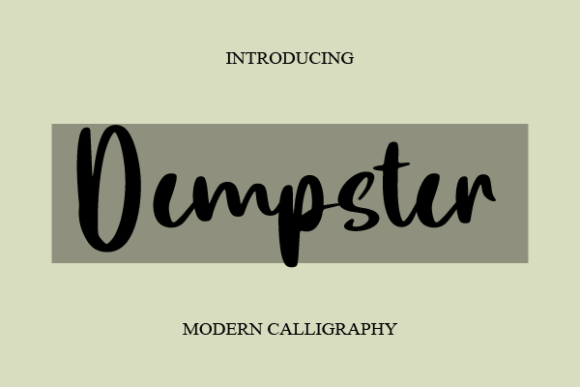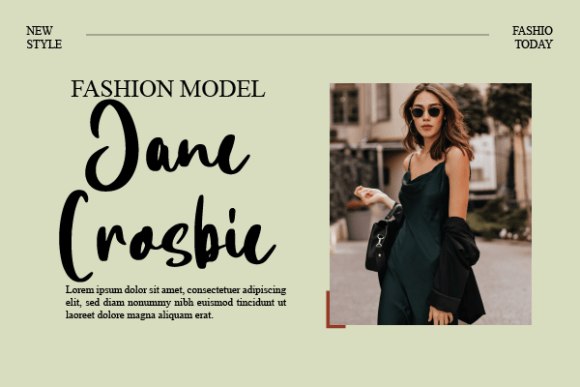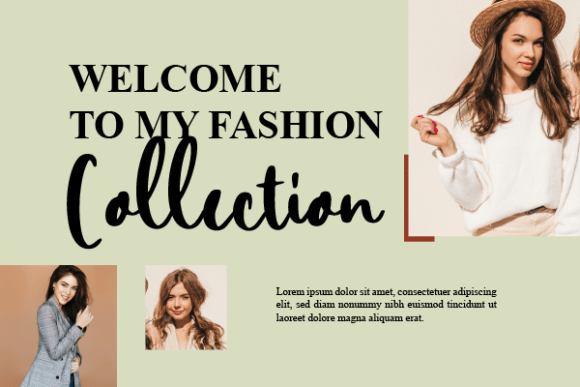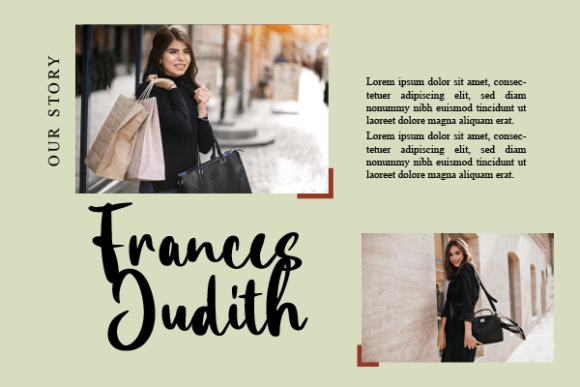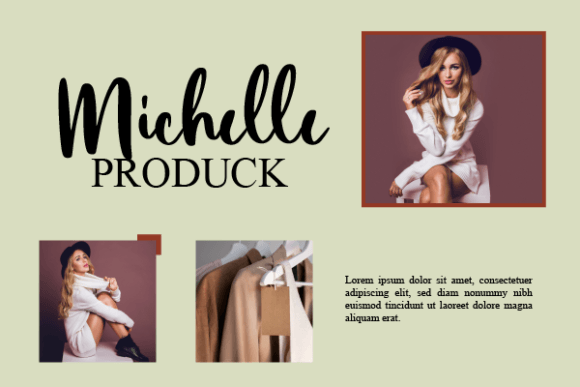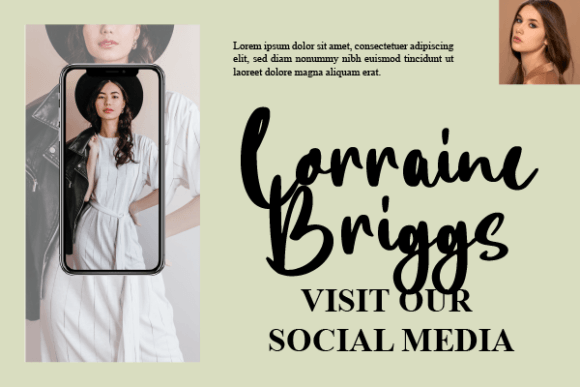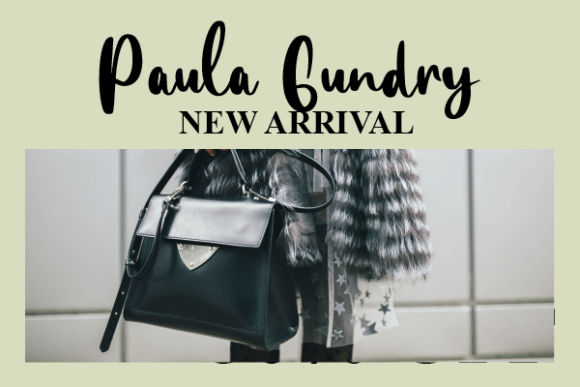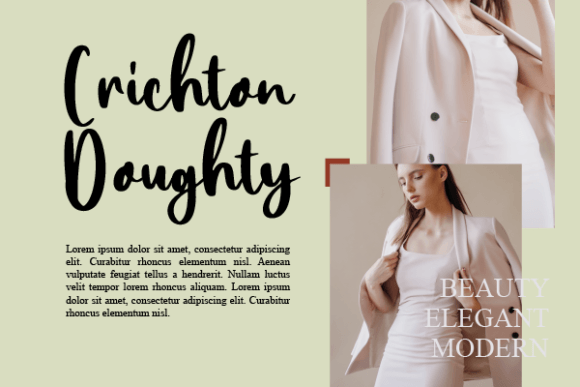
Dempster
Dempster is a stylish and elegant script font that exudes elegance and class. This font was particularly crafted for those who need a beautiful and refreshing look to their designs.